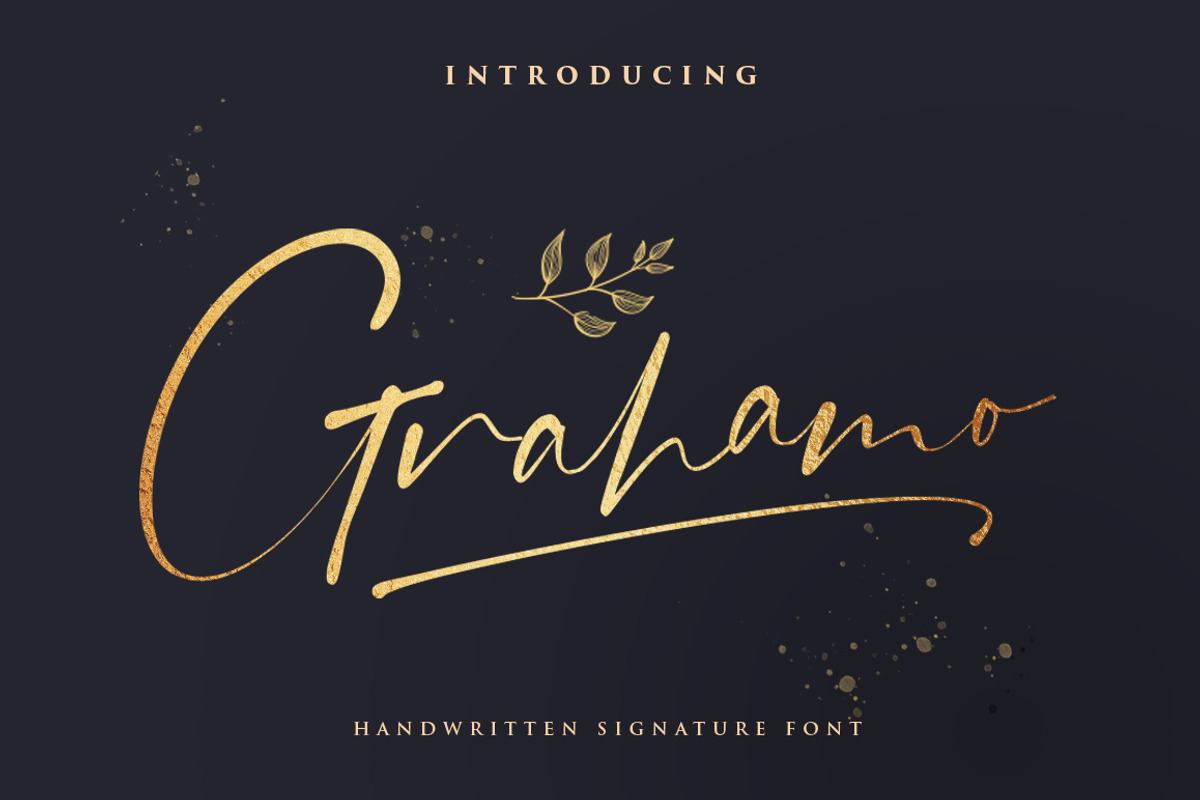
Grahamo - Luxury Script Free Download
Grahamo - Luxury Script Font Free Download
Grahamo - Luxury Script Font Free Download is an elegant and sophisticated typeface designed to bring a touch of luxury to your projects. With its smooth curves and refined style, this script font is perfect for high-end branding, wedding invitations, logos, and more. Its luxurious design adds a timeless and classy feel to any creative work, making it ideal for premium brands and exclusive events.